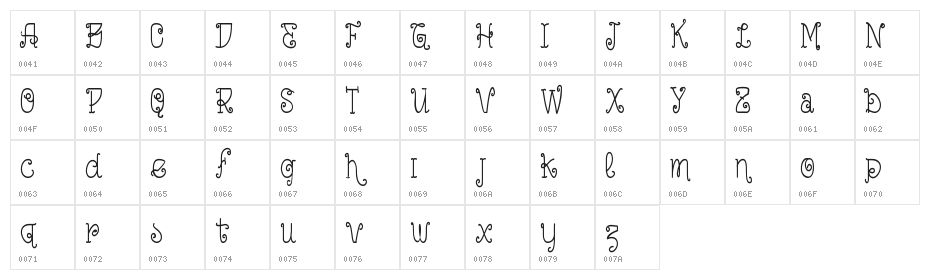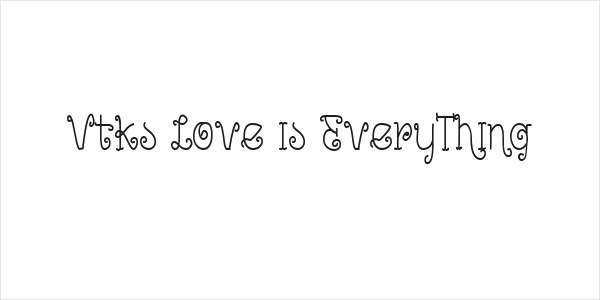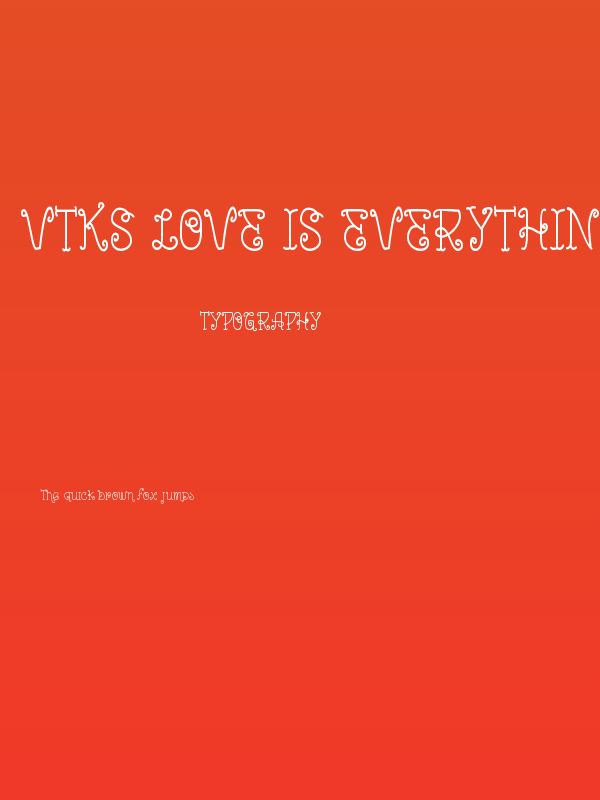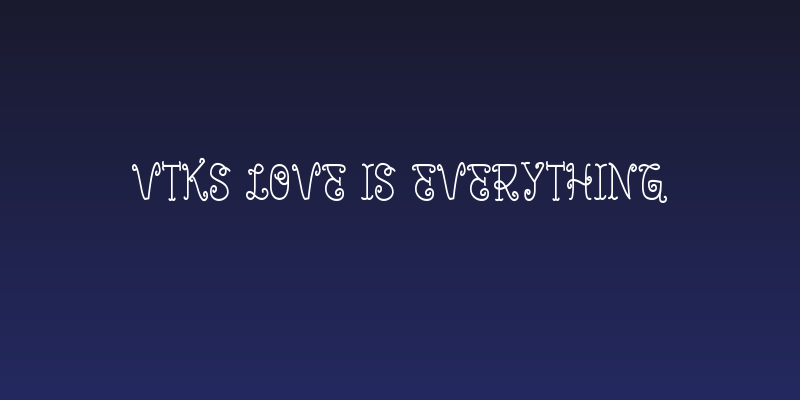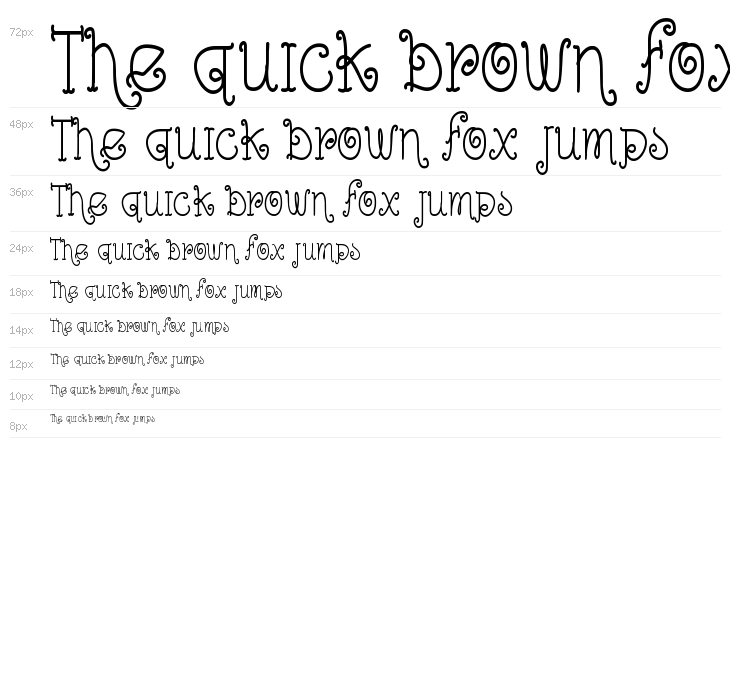
Vtks Love is EveryThing Font
Vtks Love is EveryThing Description
This font features a whimsical and playful design, characterized by its decorative swirls and curls on each letter. The uppercase letters have a bold presence with intricate embellishments, while the lowercase letters maintain a consistent style with slightly less ornamentation. The font exudes a sense of fun and creativity, making it ideal for projects that require a touch of personality and flair. The characters are evenly spaced, ensuring readability despite their ornate nature. The font's unique style is perfect for capturing attention and adding a distinctive look to any design.
| Proposed Projects | Ideal for greeting cards, invitations, children's books, and creative branding. |